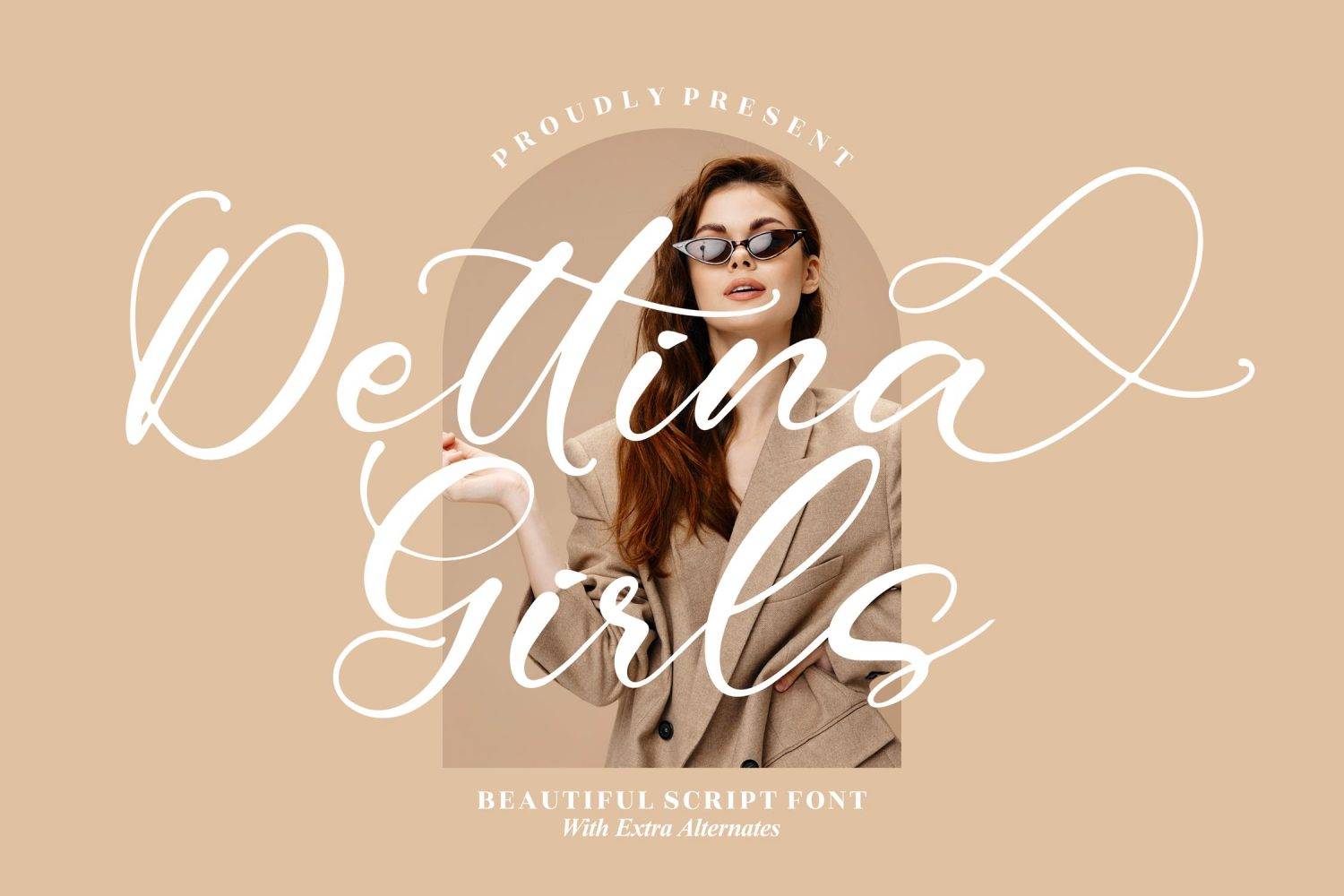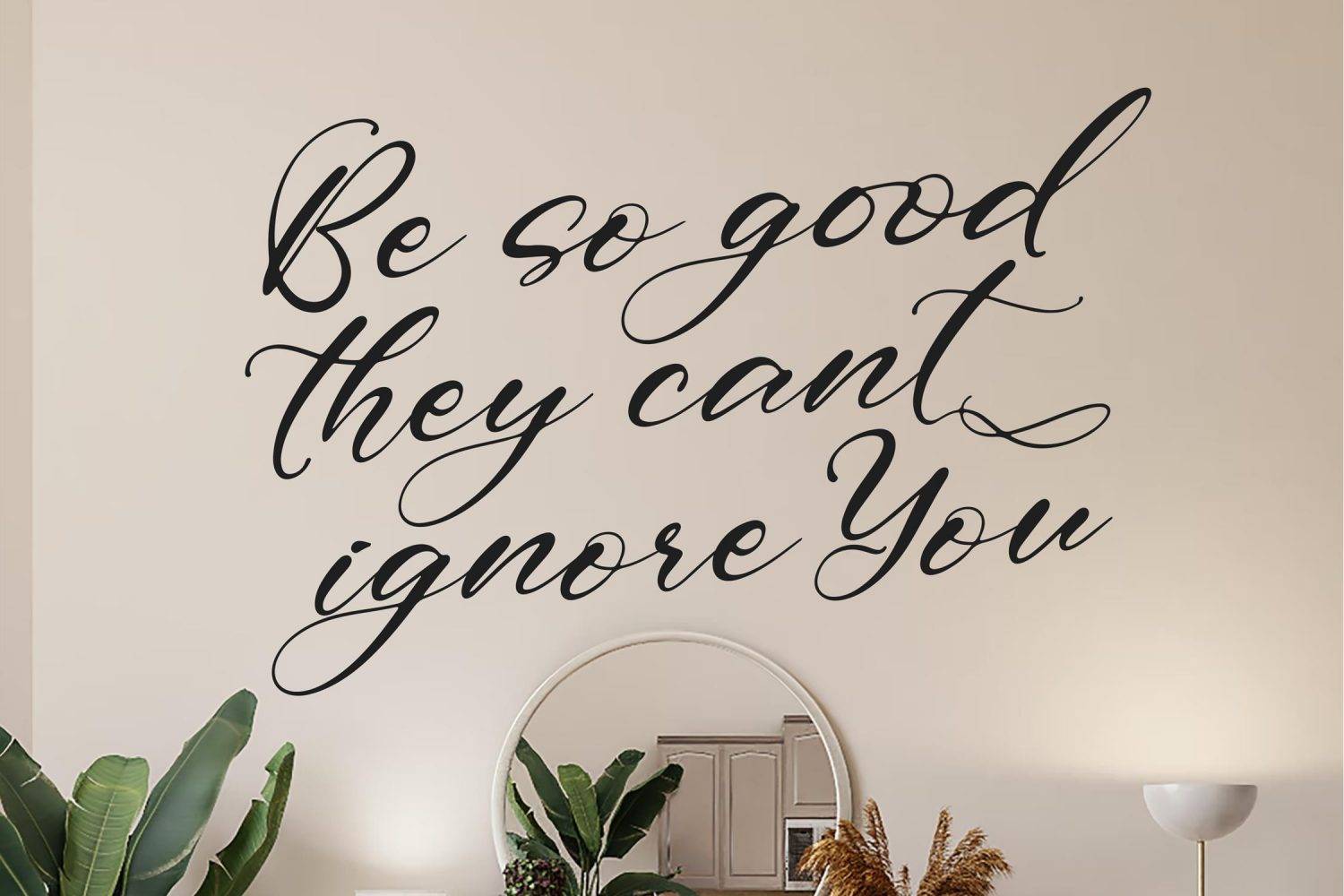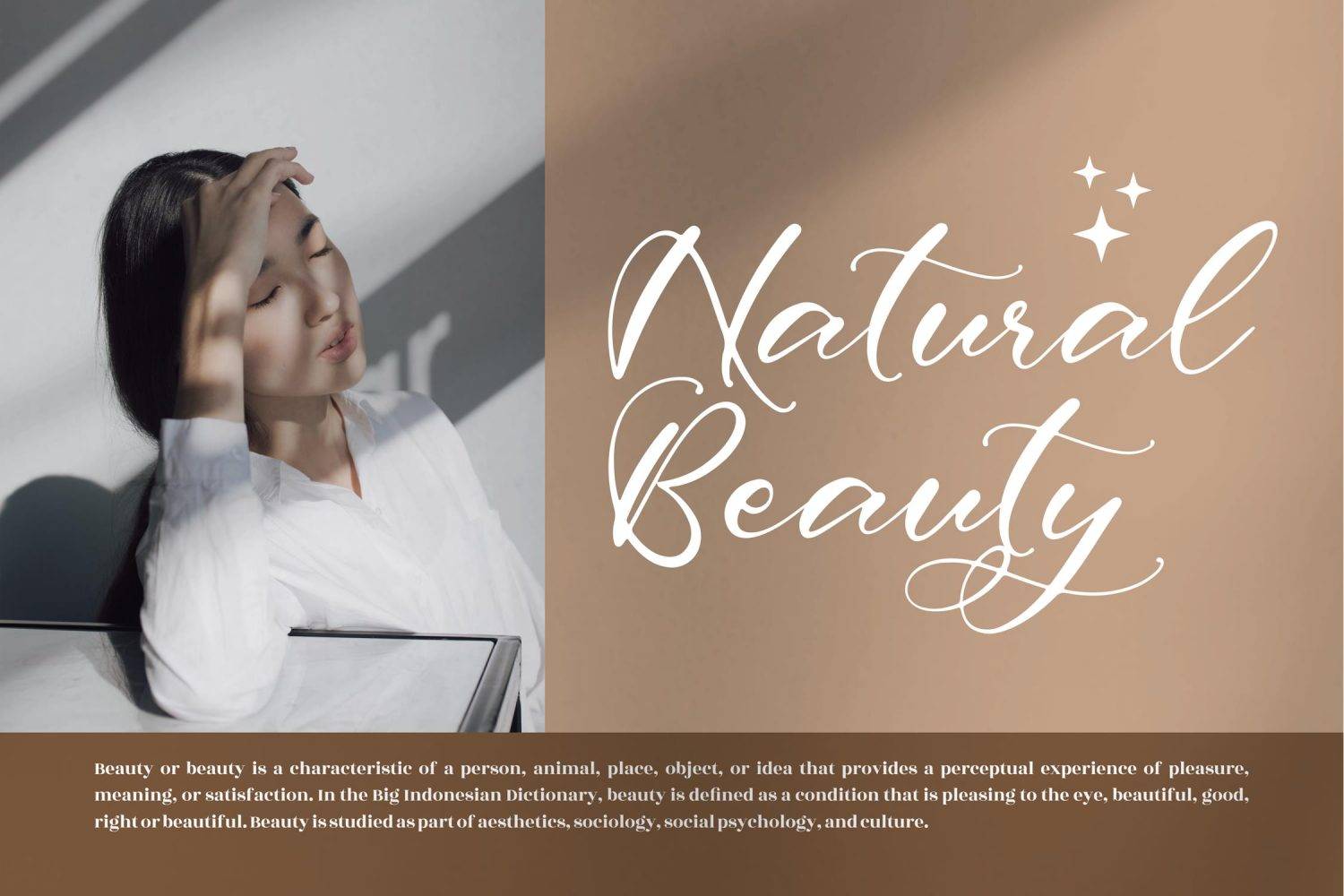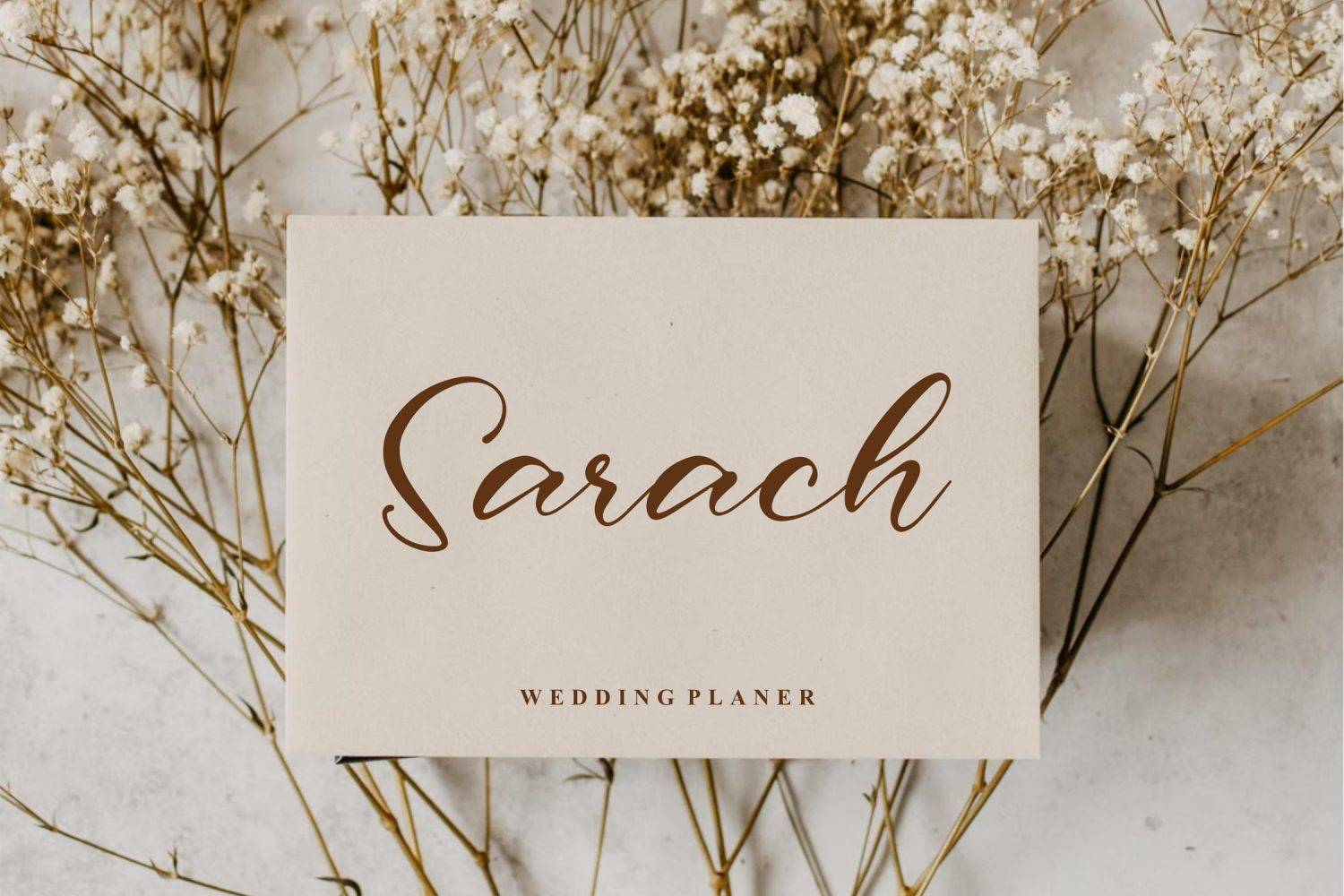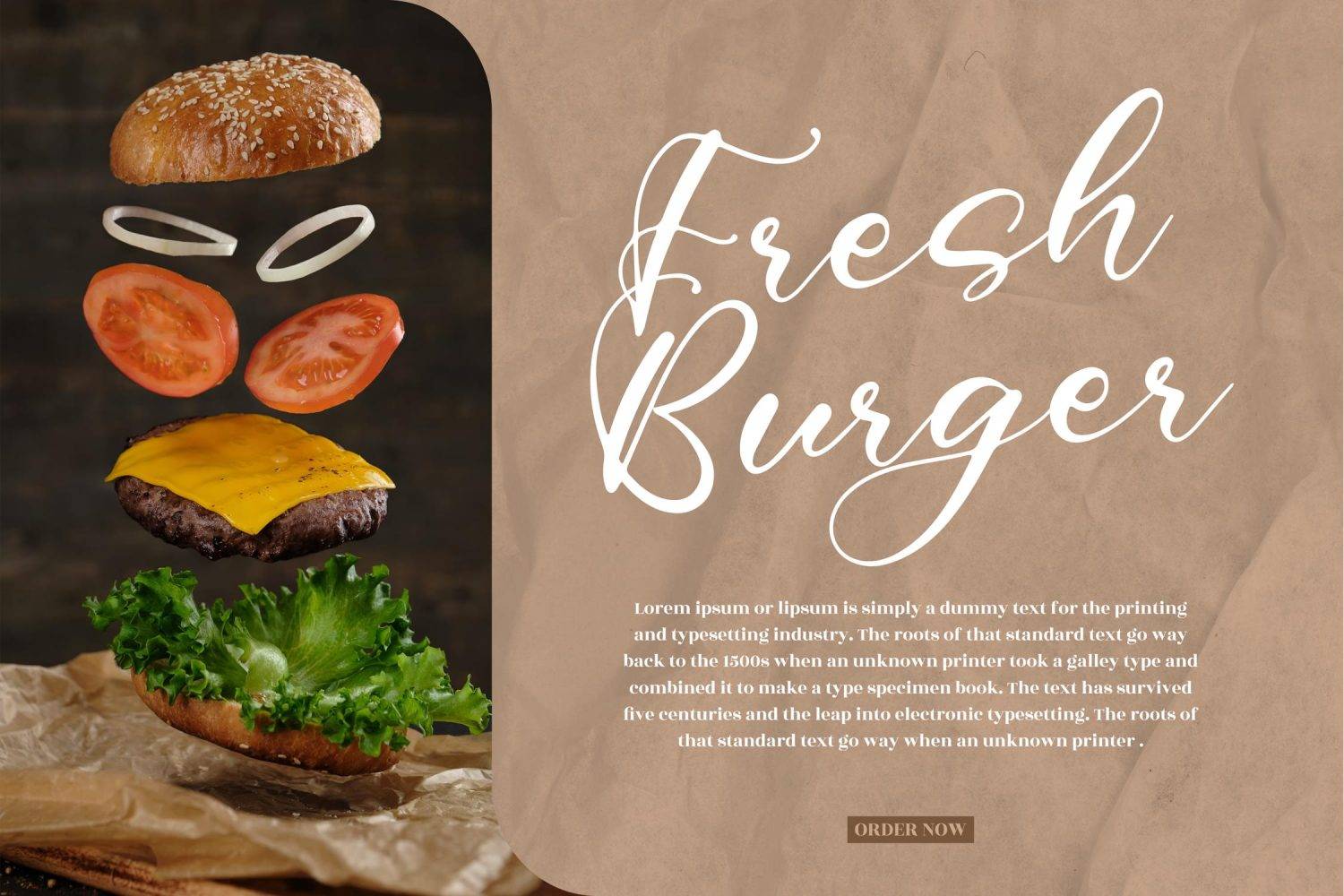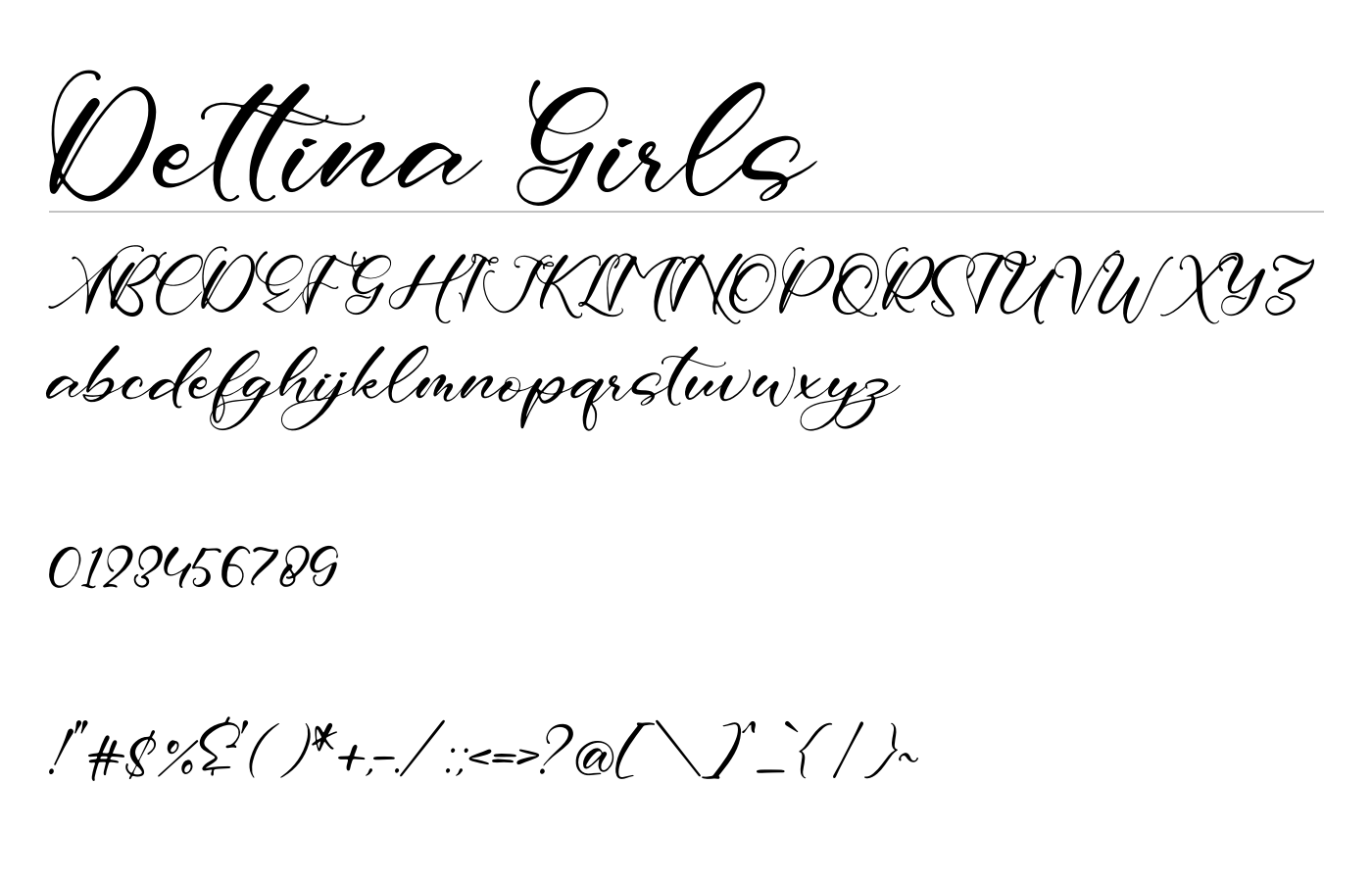
Dettina Girls is an elegant script font featuring smooth, flowing strokes with a delicate, feminine touch. Its graceful curves and decorative swashes give it a refined and artistic personality, making it perfect for wedding invitations, branding, and other projects that need a romantic or sophisticated feel. This font shines in headlines and logos where a stylish, hand-lettered look can truly stand out.
Dettina Girls Font
About Dettina Girls Font
| Font family | Dettina Girls Font |